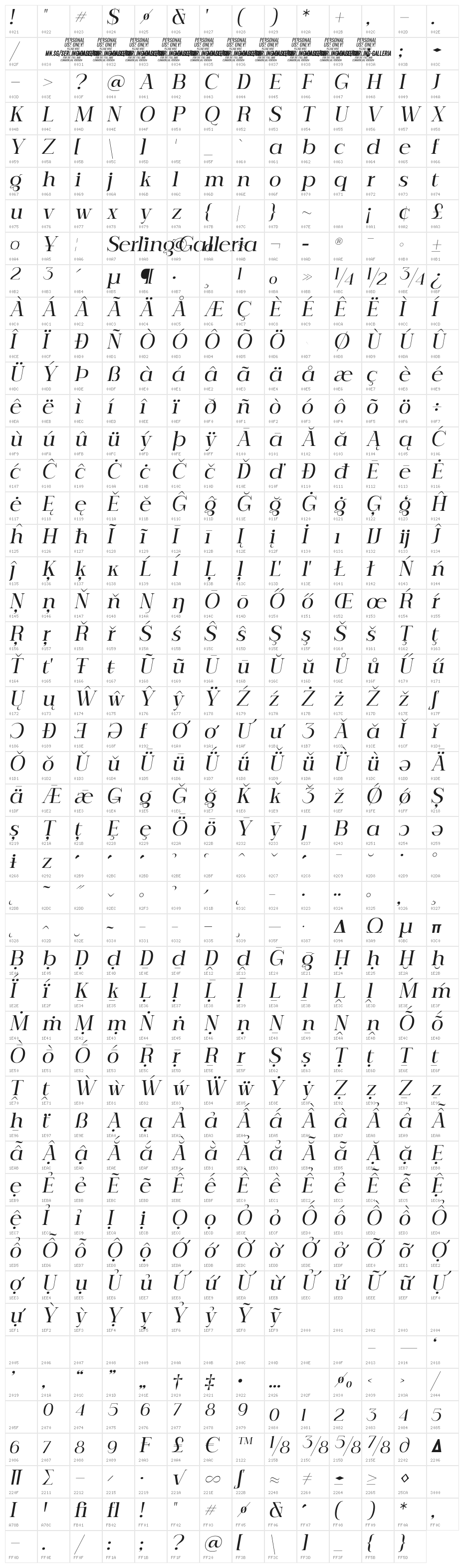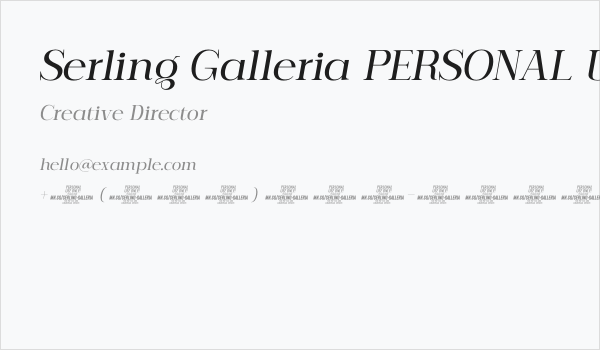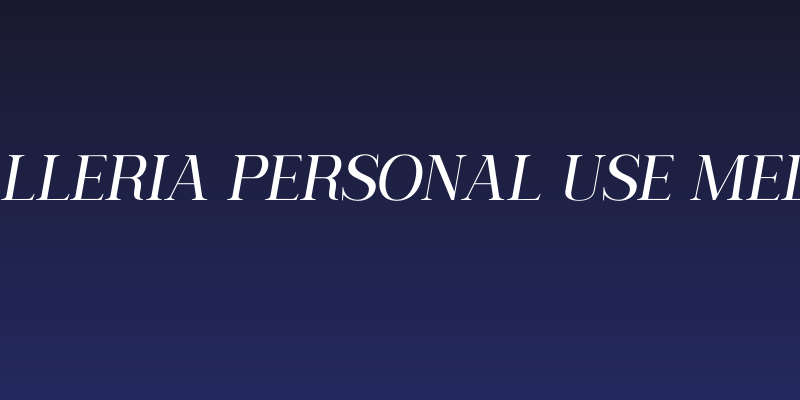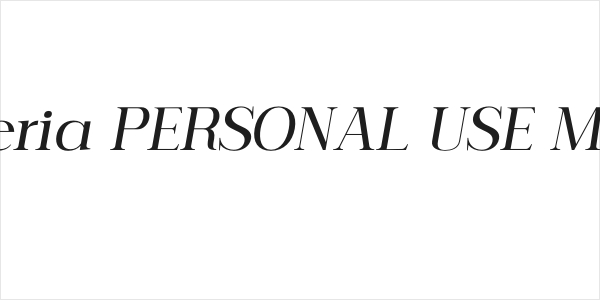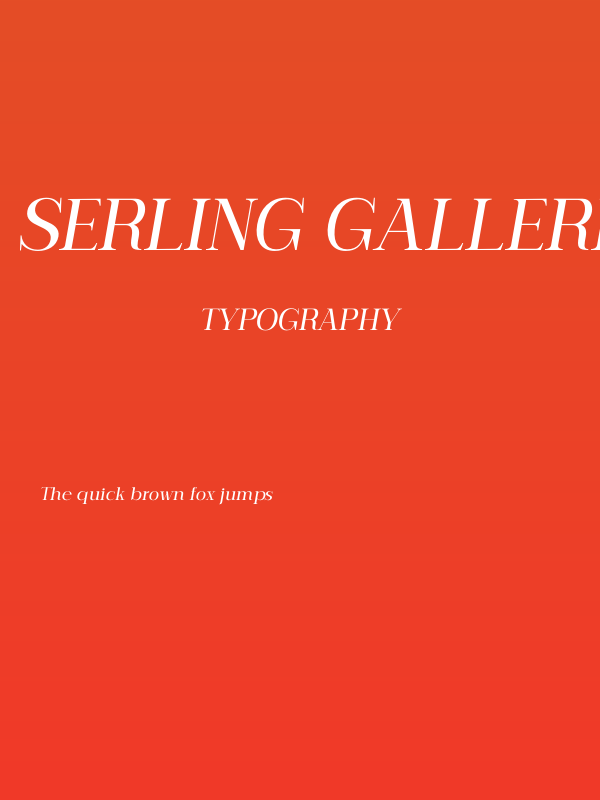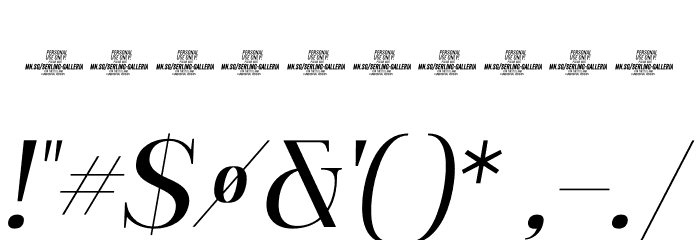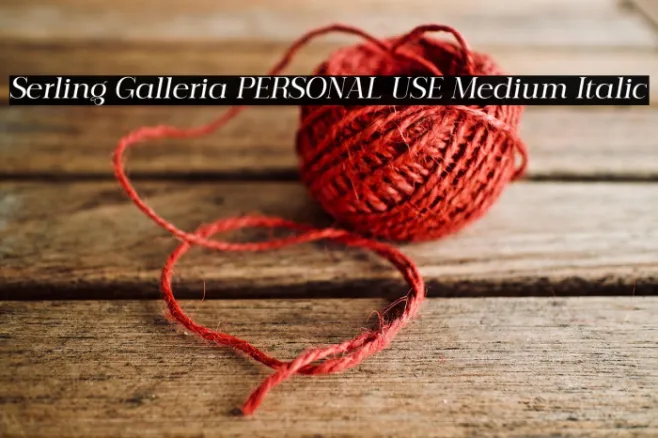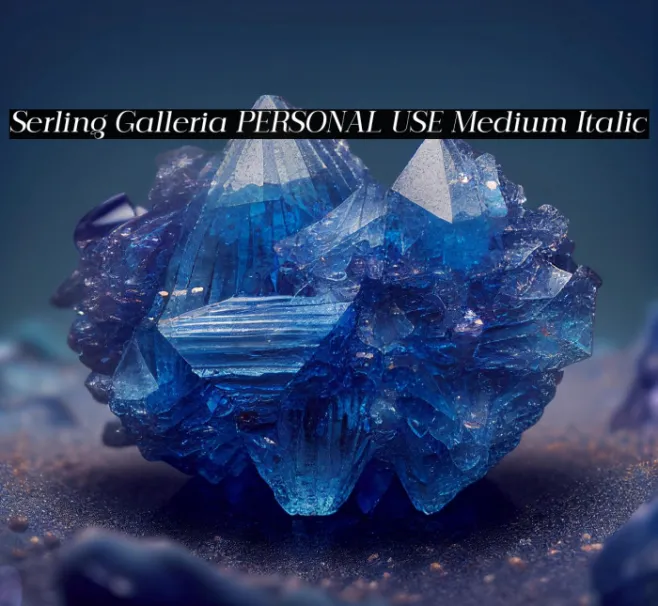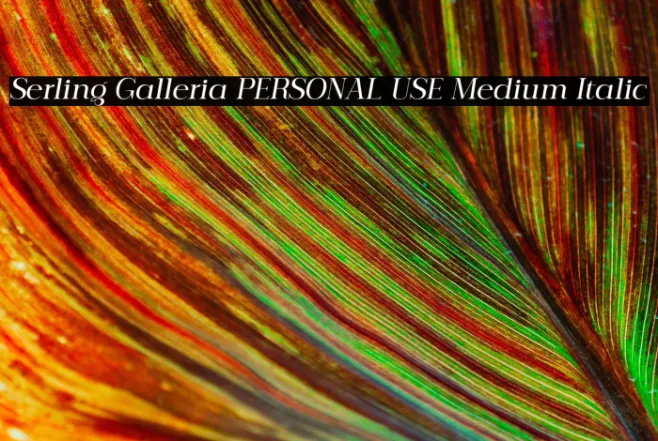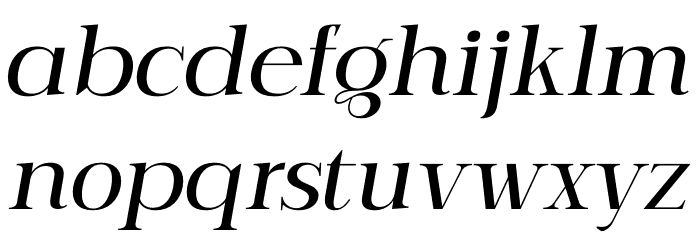
Serling Galleria PERSONAL USE Medium Italic Font
Serling Galleria PERSONAL USE Medium Italic Description
This font features an elegant and sophisticated design with a medium weight and italic style. The characters exhibit a classic serif structure, providing a sense of tradition and formality. The strokes are moderately contrasted, with thin lines that add a touch of delicacy and refinement. The italic slant gives the font a dynamic and fluid appearance, making it suitable for conveying elegance and grace. The spacing between characters is balanced, ensuring readability while maintaining an aesthetically pleasing flow. This font is versatile, capable of enhancing both digital and print media with its timeless appeal.
| Overall Style | Classic |
| Use Case | Headlines, Logos, Invitations |
| Proposed Projects | Ideal for wedding invitations, luxury branding, editorial design, and formal event programs. |